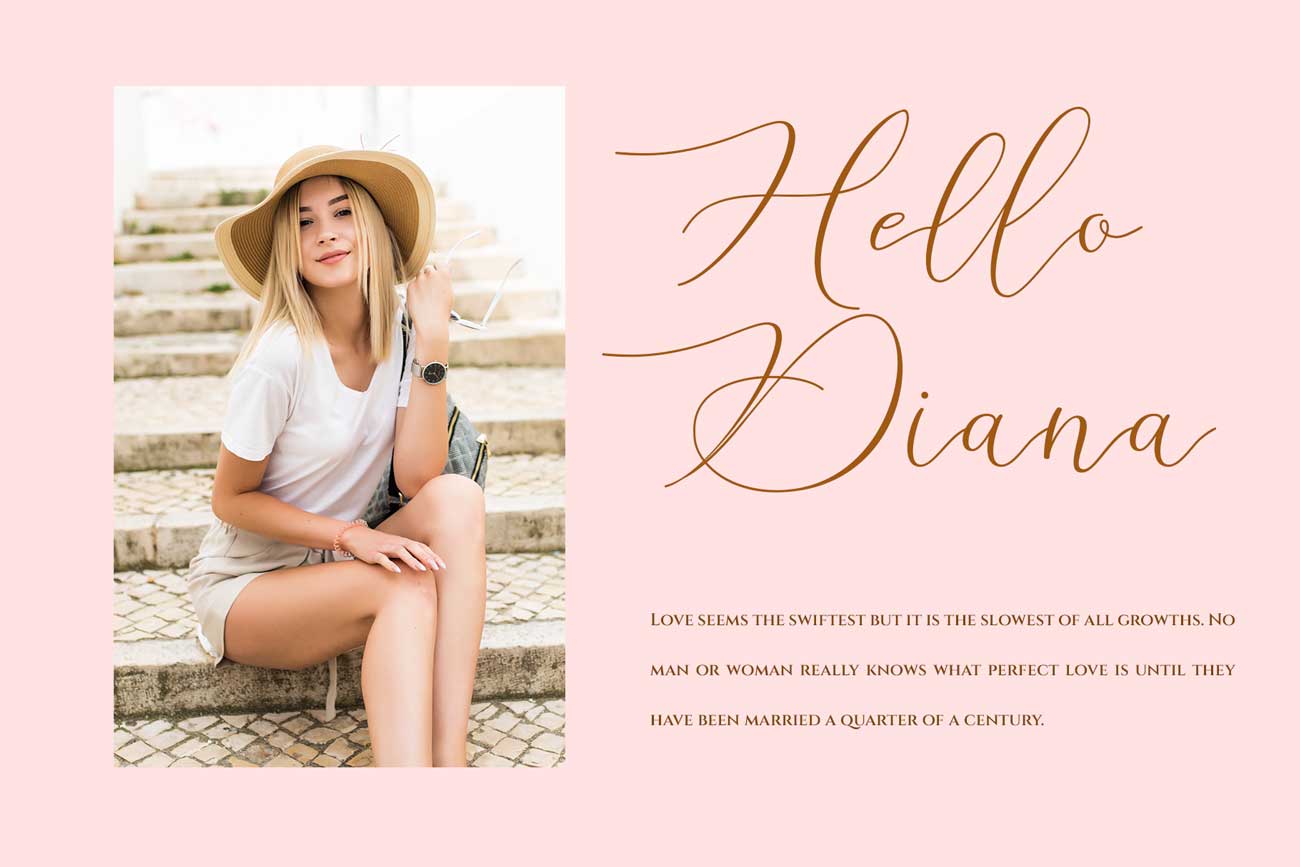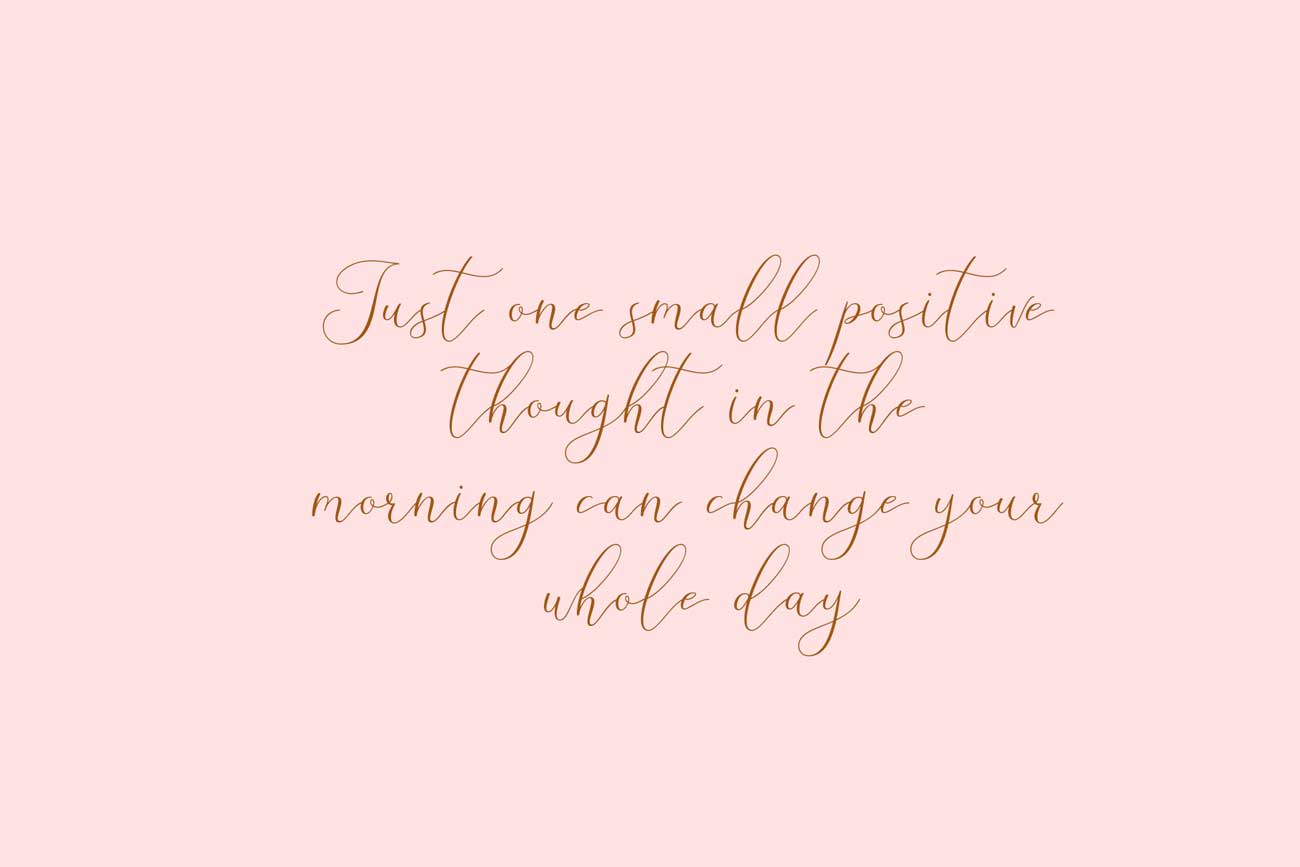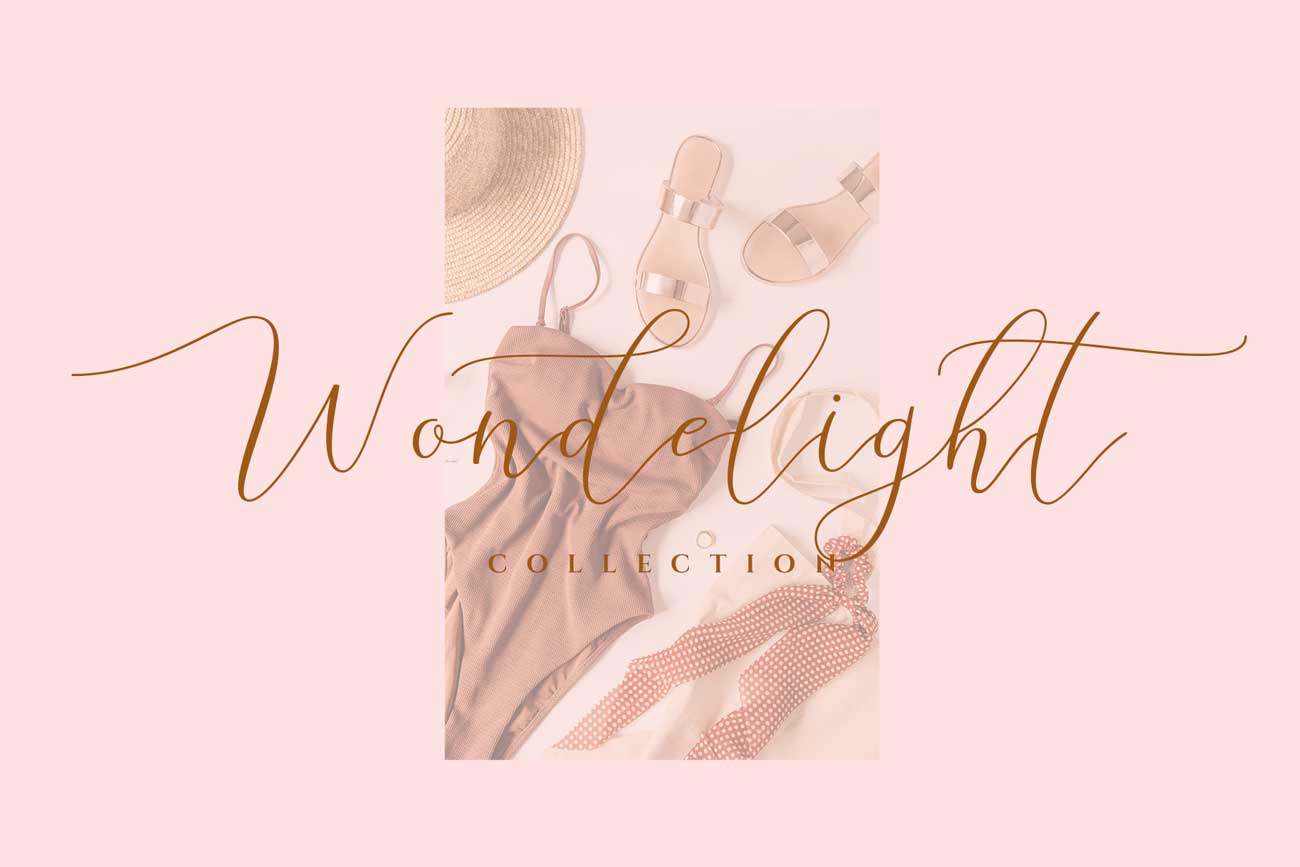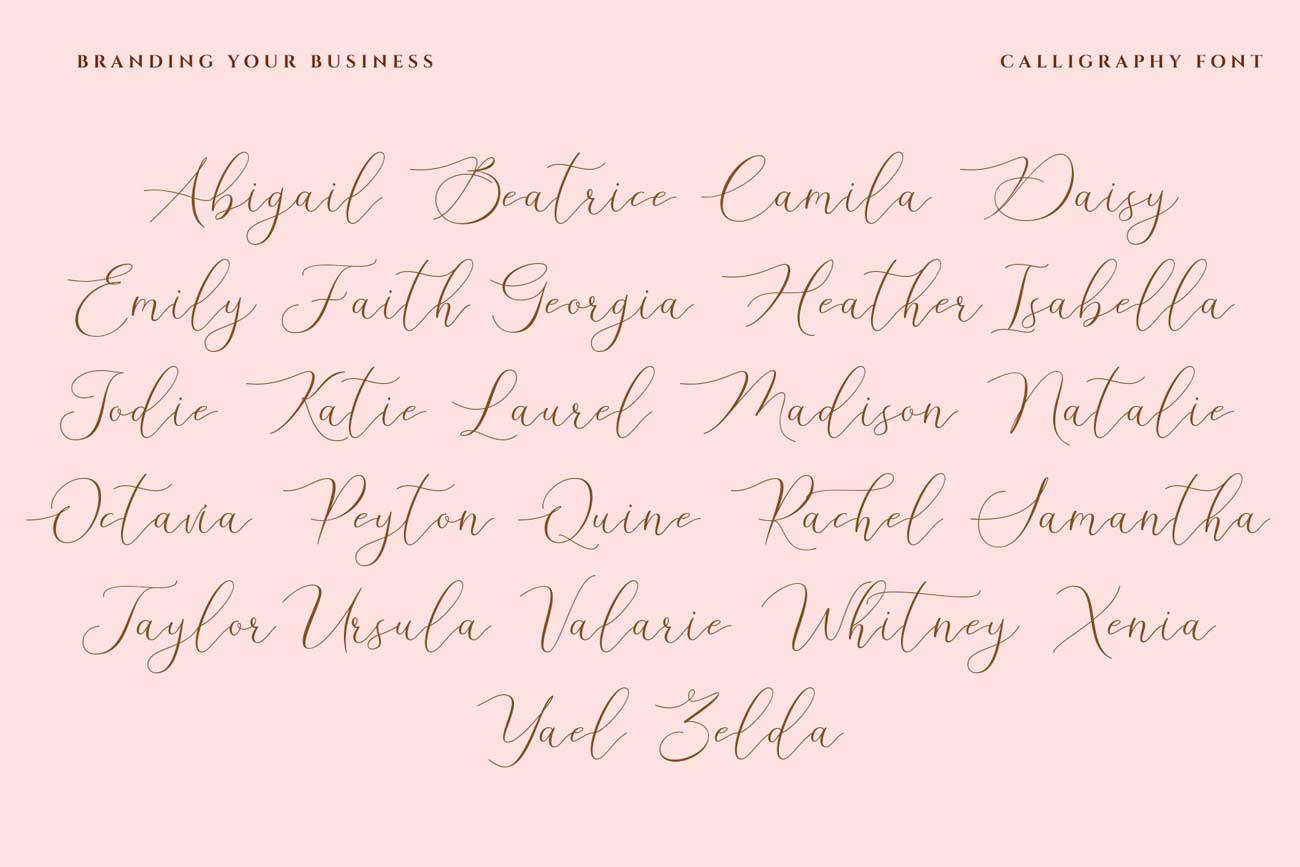
Stelly Calligraphy Handwritten Font
Stelly is calligraphy font it’s looks modern, feminine, girly, catchy and easy to use. Stelly is the great choice for watermark on wedding organizer, signature or signature logo design, quotes, album cover, business card and many other design project.
• Basic Latin A-Z and a-z
• alternate and ligature
• begin and end swashes